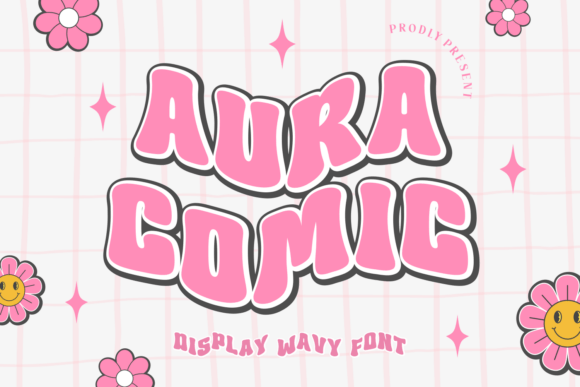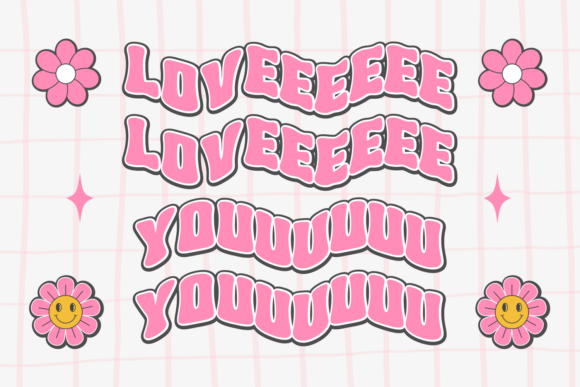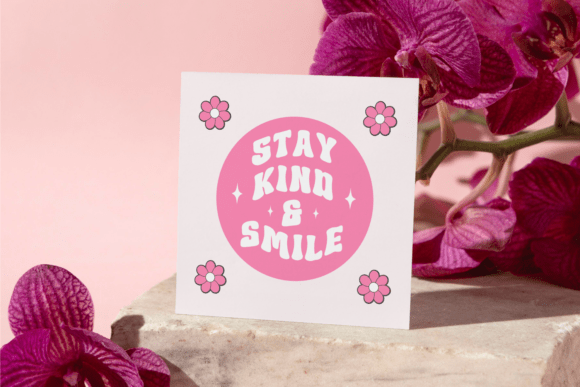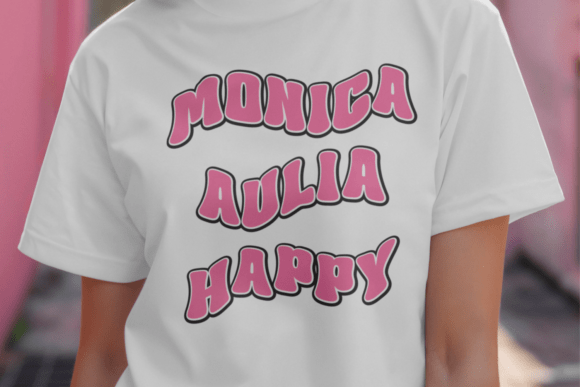
Aura Comic Font
About the Aura Comic Font
Meet Aura Comic Font, a stunning font that brings a touch of elegance and professionalism to any design. Unleash the power of a versatile font that can transform the ordinary to exceptional. Its refreshing blend of distinct styles from Display and Wavy to Groovy and Retro, captures the soul of the 70s. This Vintage font, imbued with an undertone of the classic Cricut design, is an absolute charmer for those seeking a playful yet elegant embodiment of their thoughts. Exuding a funky vibe, this font fits perfectly on T-shirts, making your style speak louder than words.
Be it for branding, or for creating bold statements, this font, meticulously crafted by 7ntypes, ensures your message makes an impact. Perfect for magazines, logos, and even cartoons, it offers a unique versatility unseen in any other fonts. With a special focus on love and brightness, it effortlessly injects expressiveness into your designs.
Wherever you need a touch of flair, this font is ready to deliver with its stylish aesthetics. Ideal for creating energetic stickers or carving out a brand identity that stands out, its adaptability knows no bounds.
Breathe life into your imagination with this font that fuses tradition with trends. Whether it’s about bringing a vintage charm or making a contemporary statement, with this font – the magic lies in the details.
Aura Comic Font Usage Examples
Aura Comic Font Example